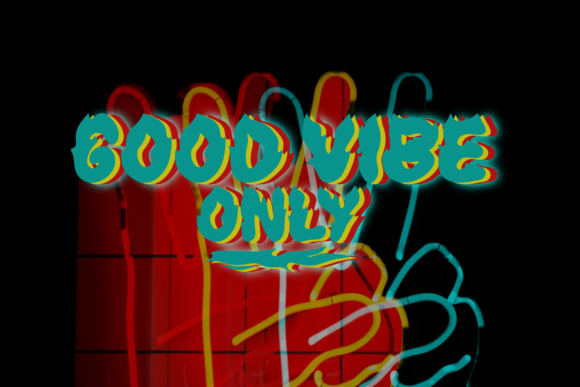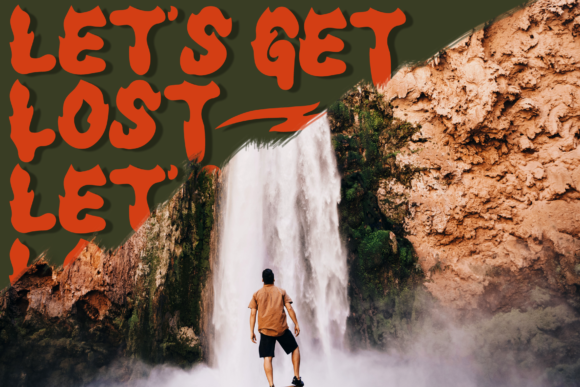
Introduction to On Fire Font
There’s nothing quite like the rush of inspiration that hits when working on a creative project. The idea sparks, and you’re off, pouring over designs, searching for the perfect element to bring it all together. For designers, finding that elusive font can be the key to unlocking the entire project. And, trust us, you’re in luck because we’ve got just the thing – the On Fire Font.
This stylish display font is a game-changer for any design project. Whether you’re creating eye-catching letters and logos or designing invitations, labels, magazines, or books, the On Fire Font is the perfect design resource. With its cool and interesting design, it’s sure to elevate your creative project and leave a lasting impression.
Key Features of On Fire Font
• Unique, bold, and eye-catching font style ideal for use in various design contexts.
• Designed to be versatile, suitable for use in logos, typography, and other creative applications.
Honest Review: On Fire Font
I recently came across the On Fire Font, and I must say it’s a solid addition to any designer’s toolkit. One of the things that stands out about this font is its ✨ high quality, making it perfect for creative projects where attention to detail is crucial.
Here are some of the things that work well with the On Fire Font:
• High-quality design that’s perfect for creative projects
However, I did notice a few limitations with the On Fire Font:
• ⚠️ Limited character set, which may not be suitable for long-form content
• ⚠️ Not as versatile as some other fonts in the market
Overall, the On Fire Font is a great design resource that’s definitely worth checking out. While it may have some limitations, its high quality and free download option make it a solid choice for designers working on creative projects.
Tips for Getting the Most Out of On Fire Font
To get the most out of On Fire Font, use it with a transparent background for a sleek design. Experiment with different font sizes and colors to create a visually appealing design.
Common Use Cases for On Fire Font
On Fire Font is commonly used in creative projects such as branding, marketing materials, and social media graphics. Its high-quality design and transparent background make it an ideal choice for designers and non-designers alike.